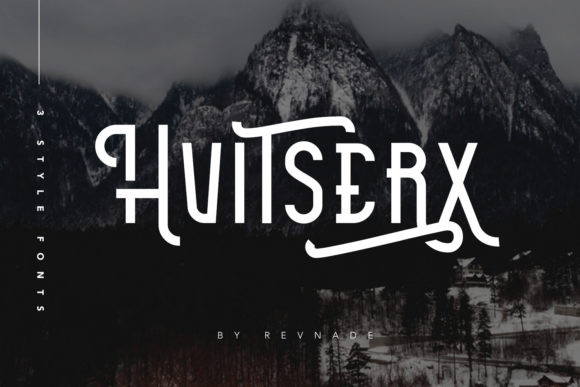
Hvitsrex Font
Hvitsrex Font is perfect for Nordic branding, Scandinavian designs, winter campaigns, minimalist logos, architectural projects, modern signage, clean advertising, contemporary packaging, industrial design, and sophisticated visual communications. This distinctive typeface excels in both digital and print applications requiring Nordic elegance.
Hvitsrex Font is exciting because it captures the pristine beauty of Nordic design with clean letterforms that evoke Scandinavian minimalism and sophisticated simplicity while maintaining excellent readability. Its Nordic character creates memorable brand experiences that resonate with audiences seeking purity, functionality, and timeless design excellence.
The Hvitsrex Font family includes regular, bold, light, italic, condensed, extended, and nordic variants, providing designers with comprehensive typographic options for various design scenarios and Scandinavian communication requirements.
Hvitsrex Font embodies the pure essence of Nordic design philosophy, delivering exceptional typography that reflects the clean aesthetics and functional beauty associated with Scandinavian culture and minimalist design principles. This sophisticated typeface draws inspiration from Arctic landscapes, Scandinavian architecture, and Nordic craftsmanship to create letterforms that communicate clarity, efficiency, and understated elegance. The font's Nordic character makes it particularly valuable for design studios, architectural firms, sustainable brands, and modern companies that require typography capable of conveying Scandinavian authority, minimalist sophistication, and functional excellence.
The architectural construction of Hvitsrex Font demonstrates masterful understanding of Nordic design principles, with clean lines and balanced proportions that create harmonious visual compositions reminiscent of Scandinavian interiors and minimalist aesthetics. This pure approach ensures excellent performance across diverse applications, from architectural presentations to brand communications where Nordic appeal enhances credibility and sophisticated positioning. The font's refined qualities make it especially effective for brands in design, architecture, sustainability, and modern lifestyle that celebrate functional beauty and environmental consciousness.
Creative professionals working with Hvitsrex Font Free Download will appreciate the typeface's versatility across Nordic and contemporary design challenges. Its Scandinavian styling bridges traditional minimalism with modern functionality, making it suitable for established design institutions and innovative companies requiring distinctive, memorable typography with Nordic appeal. The font's pure presence makes it particularly effective for sustainable brands, design consultancies, architectural practices, and lifestyle businesses that must communicate sophistication through clean, authentic visual design.
Whether developing Nordic-inspired brand identities, creating minimalist communications, or designing architectural marketing materials, Hvitsrex Font provides the Scandinavian elegance needed for communications that inspire clarity and convey functional beauty while maintaining sophisticated standards and achieving authentic connection with audiences who appreciate Nordic design philosophy and minimalist excellence.